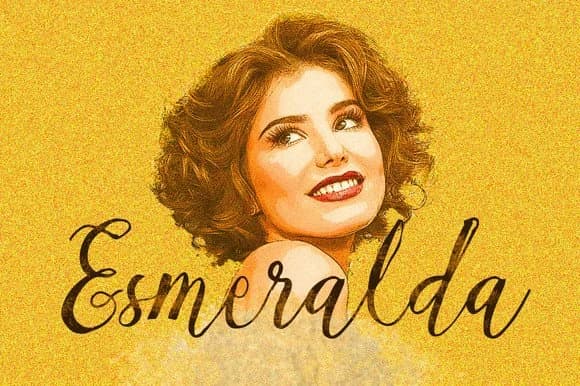
About Sambay Font
Sambay Font by Incools Design Studio is a flowing script typeface that thoughtfully merges hand-lettered warmth with contemporary design refinement and polish. The organic letterforms and natural stroke variations beautifully capture the authentic texture of handwriting while maintaining the technical sophistication that professional applications require. This careful balance between handcrafted charm and refined execution makes it equally effective for premium branding ventures and personal creative endeavors. Wedding invitation suites gain romantic elegance from its expressive letterforms, while boutique product packaging, from artisanal candles to small-batch skincare and cosmetics, truly conveys premium sophistication. Social media graphic designers rely on its refined aesthetic for lifestyle brand content and seasonal campaigns, and DIY craft enthusiasts consistently favor it for custom event signage, personalized home dΓ©cor installations, and handmade craft projects. Editorial layouts, blog headers featuring genuine artisan content, and custom stationery suites all benefit from its visual harmony and strong legibility. Product labels for independent makers and inspirational quote graphics effectively showcase its consistent appeal. The font's graceful strokes deliver personality without ever compromising readability across various scales and design contexts. Discover Sambay Font on Creative Fabrica and bring this refined handwritten aesthetic into your creative toolkit for all your next design projects.
Sambay Font is a script font that shines as a display or heading face. Pair it with a clean sans-serif or serif font for body text β the contrast creates a clear hierarchy while the two styles stay balanced and easy to read.